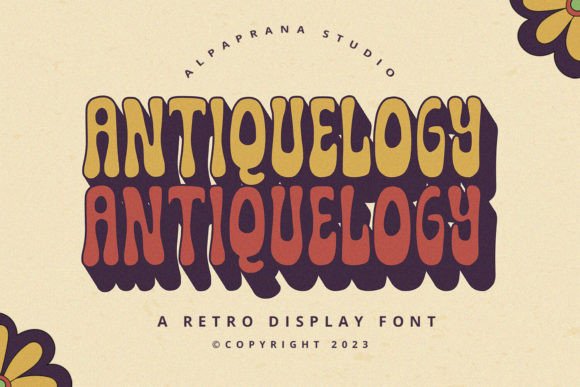
Introducing Antiquelogy Font - the Best Font for Protest Signs! Created by Alpapranastudio, this retro display font exudes a natural and vintage charm that will captivate your audience. Whether you're working on Branding, Logo Design, Lettering, Logotype, Clothing, Poster, magazine, packaging, posters, shopping bags, t-shirts, book covers, photography, special events, or any other design project, Antiquelogy is the perfect choice.
This font offers a plethora of features to elevate your designs. With both uppercase and lowercase letters, numerals, punctuations (OpenType Standard), and accents (Multilingual Characters), you have the freedom to express your creativity with ease. Furthermore, the inclusion of ligatures and alternative style stylistic sets allows you to add a unique touch to your work, making it stand out from the crowd.
But what sets Antiquelogy apart from other fonts? It's the emotional connection it creates with your audience. The vintage feels evoke nostalgia and a sense of authenticity, making your designs resonate on a deeper level. Whether you're aiming to inspire, provoke, or simply capture attention, Antiquelogy Font delivers.